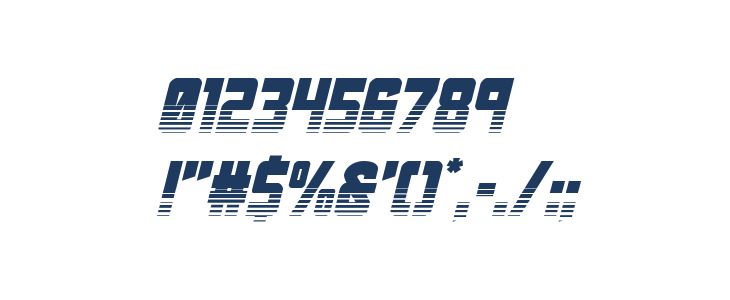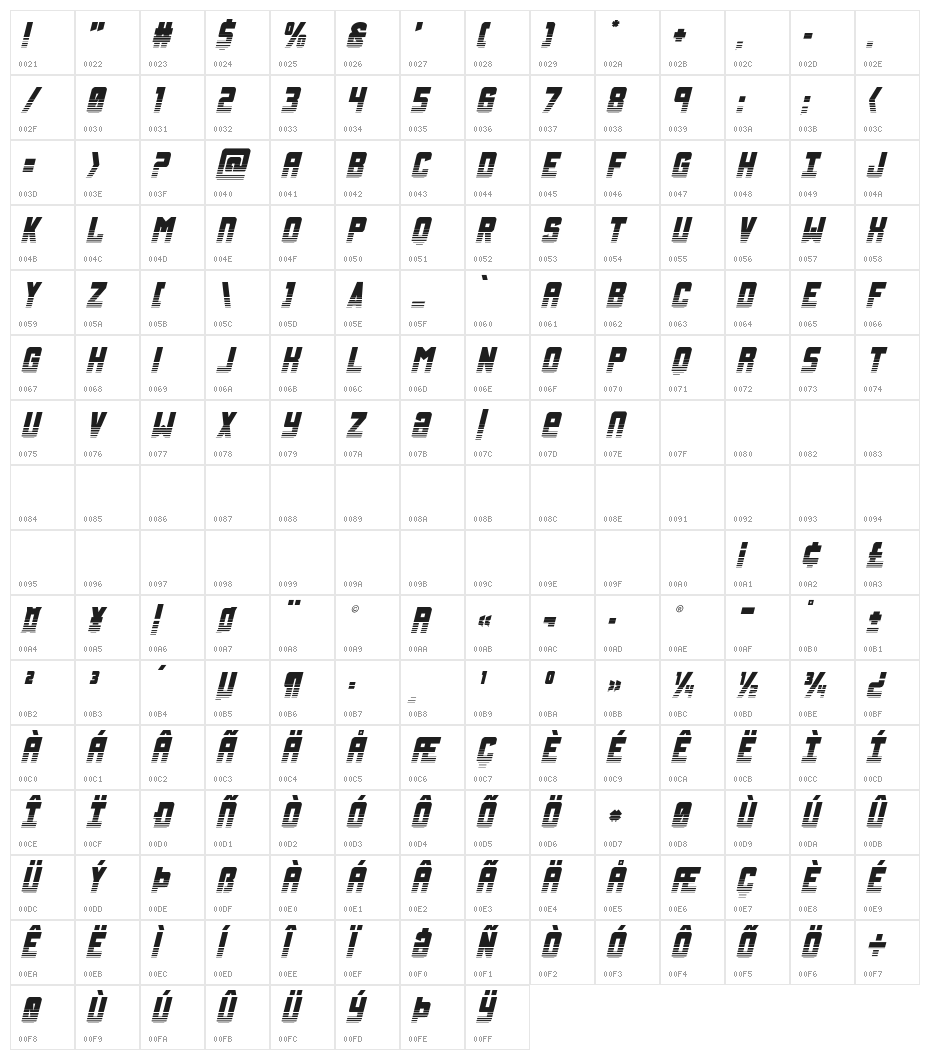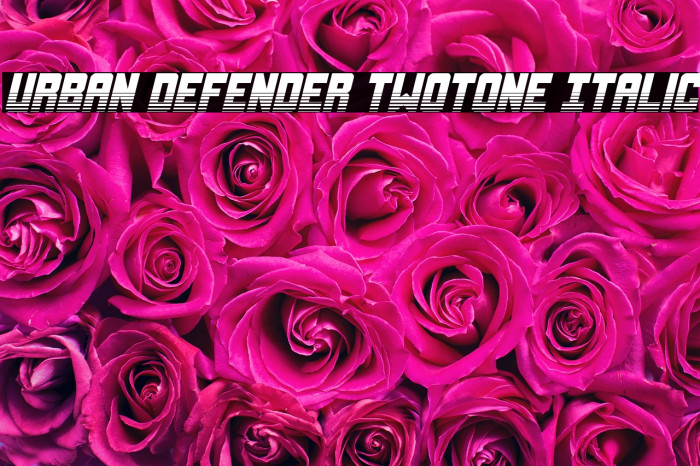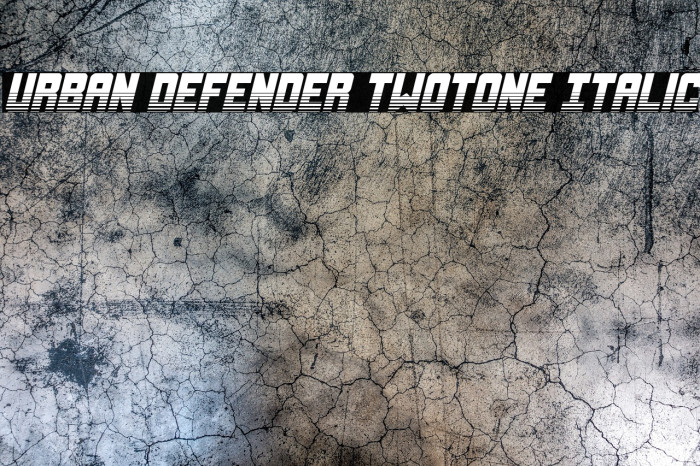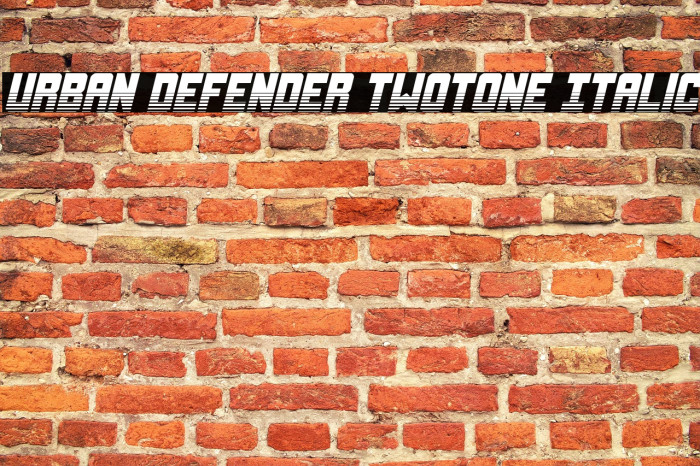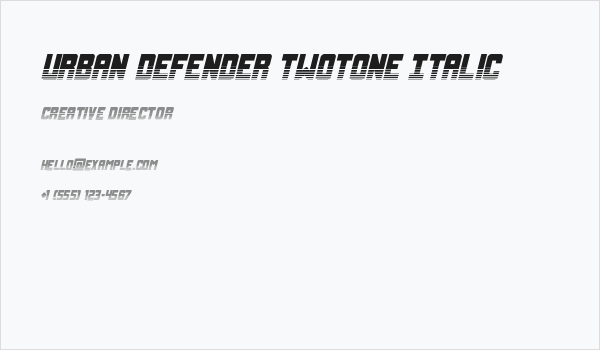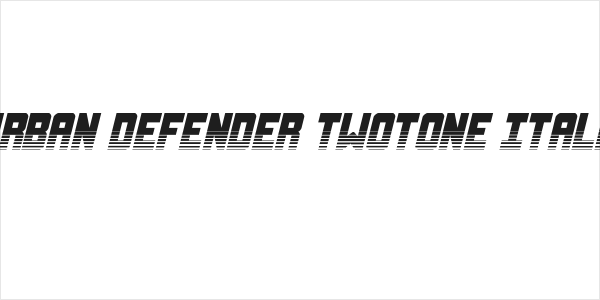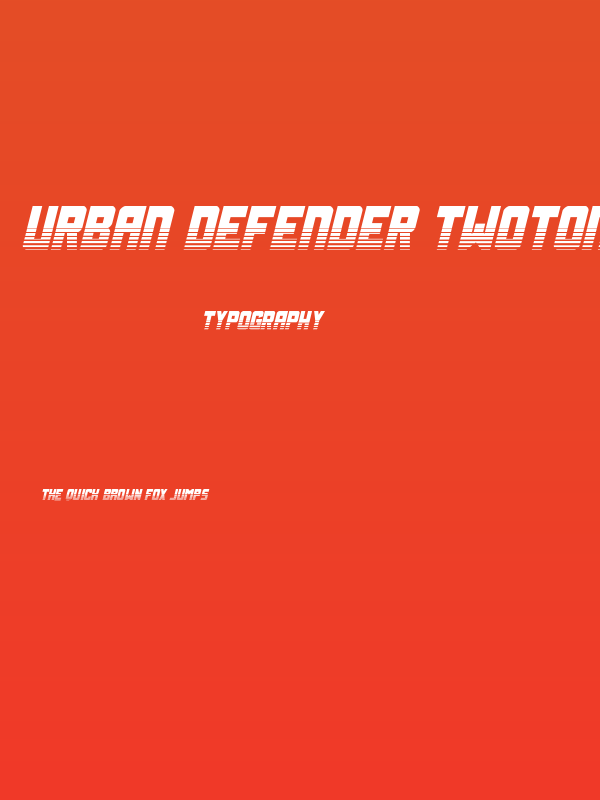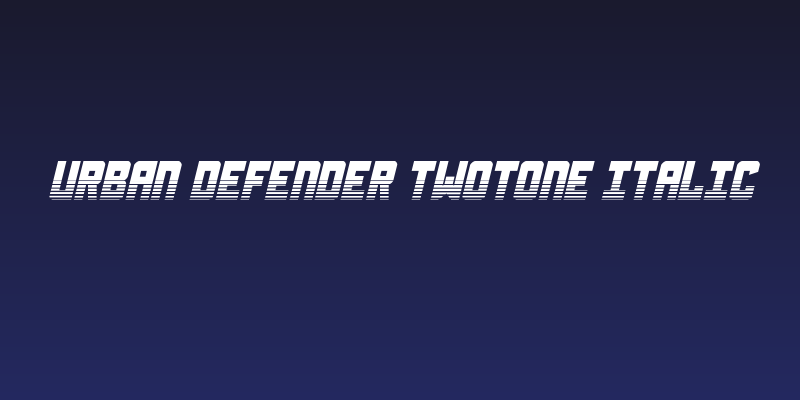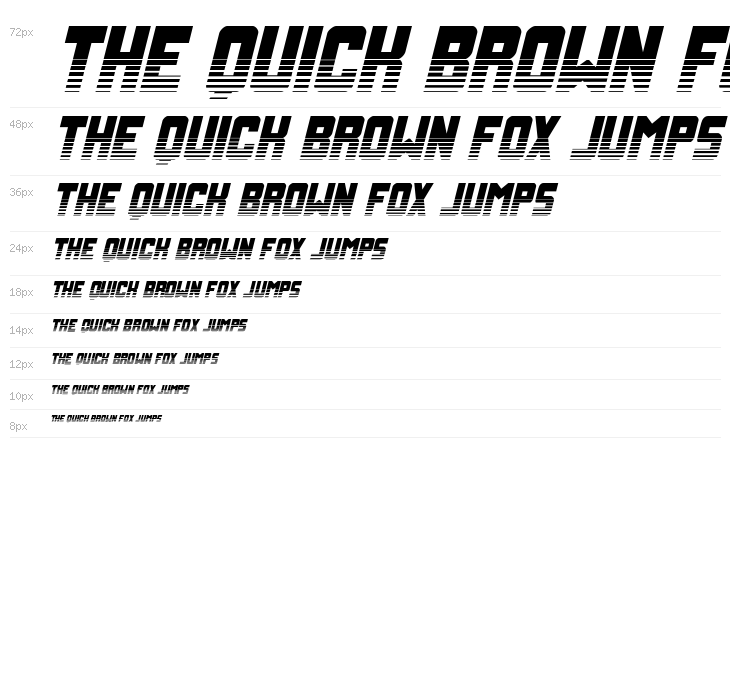
Urban Defender TwoTone Italic Font
Urban Defender TwoTone Italic Description
This font features a bold, dynamic style with a two-tone effect that creates a sense of movement and energy. The italicized letters are designed with a futuristic and urban aesthetic, characterized by sharp angles and a distinct slant. The horizontal lines within each character add a layered, textured appearance, enhancing its modern appeal. The uppercase and lowercase letters maintain a consistent style, while the numbers and special characters complement the overall design. This font is ideal for projects that require a strong, impactful visual presence.